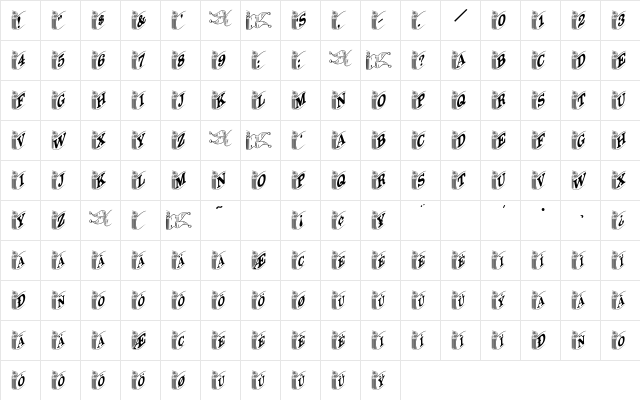
GE Banners Regular Font Preview
GE Banners Regular
GE Banners Regular Font Details
Design Context for GE Banners Typeface
GE Banners is a composed and adaptable typeface that performs quietly and consistently across a wide range of design contexts.